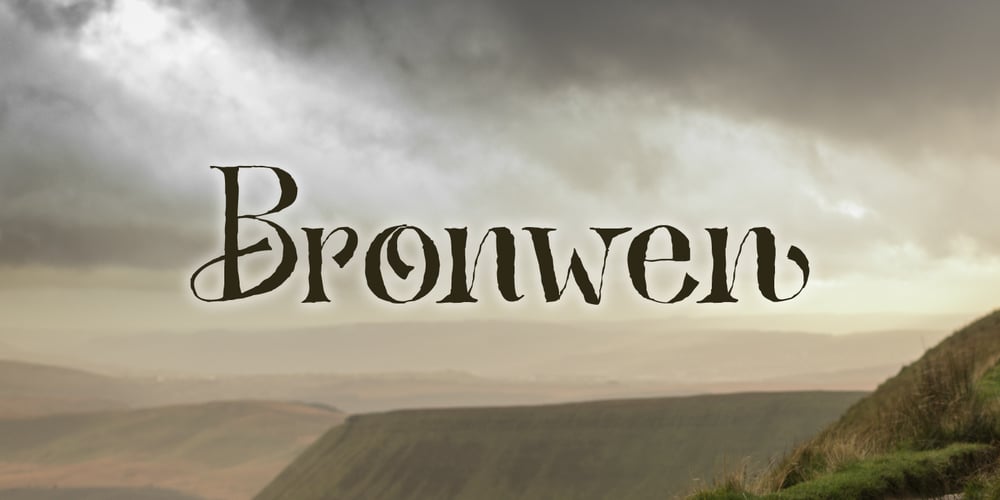
Bronwen
Bronwen font
Bronwen Font Family was designed by David Kerkhoff and published by Hanoded. Bronwen contains 2 styles and family package options. In Welsh mythology, Bronwen was the daughter of Llyr, the god of the sea. It is a popular girls name in Wales and it apparently means “white breast” or “pure heart”. I really like this name and I think it fits the font. Bronwen is a fantasy font with a bit of roughness to it. It comes with some curly swashes and a handful of alternates. Use it for your books, cards and products!